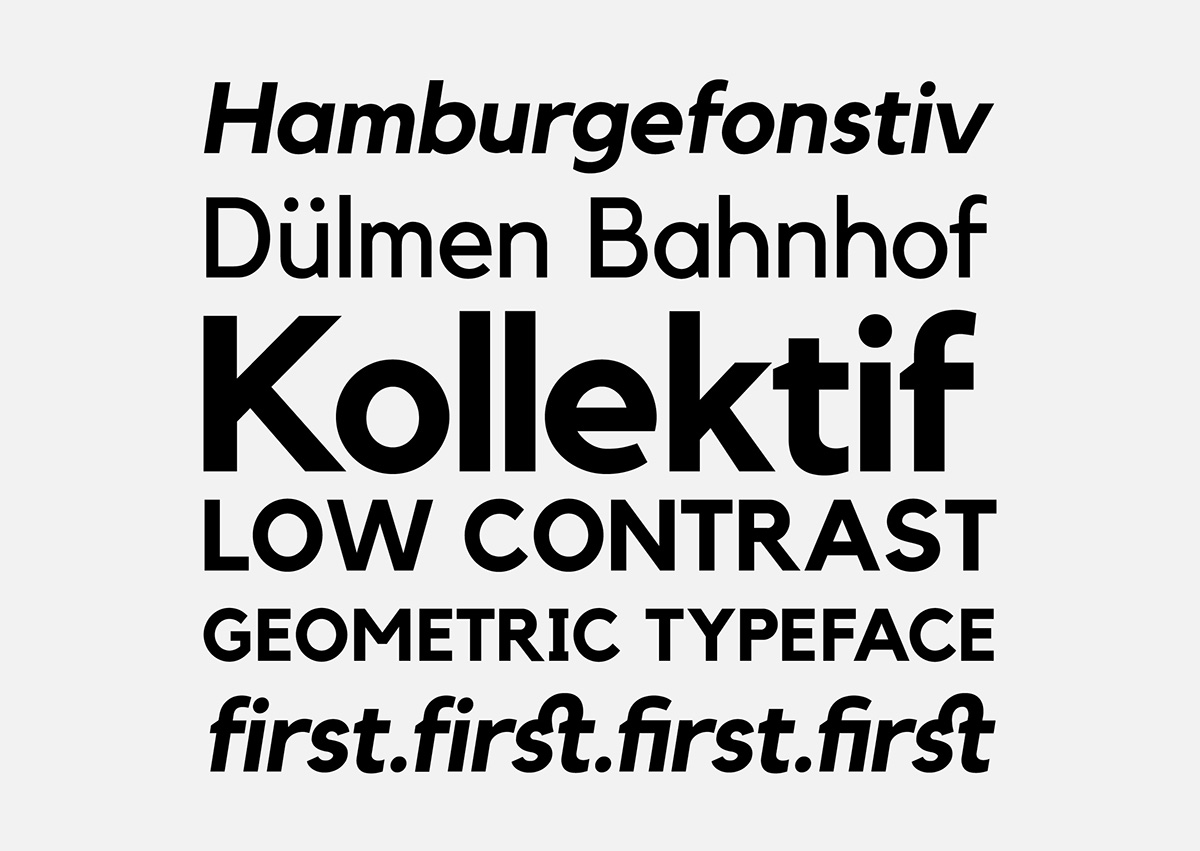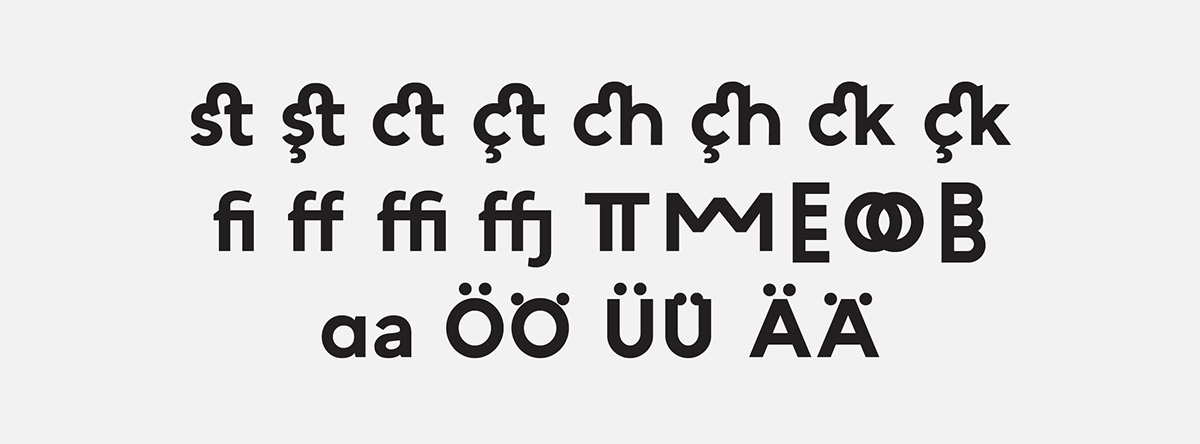
Kollektif Typeface | Free
Kollektif is a geometric typeface designed as an alternative to 21 century low-contrast, geometric and clean typefaces. It can be used for both Read More